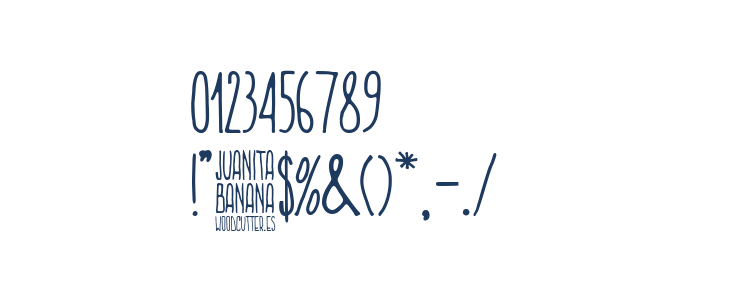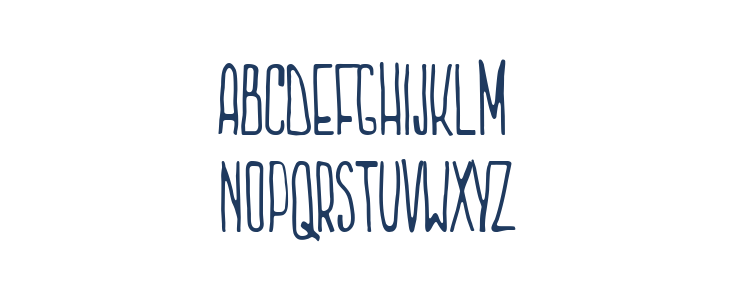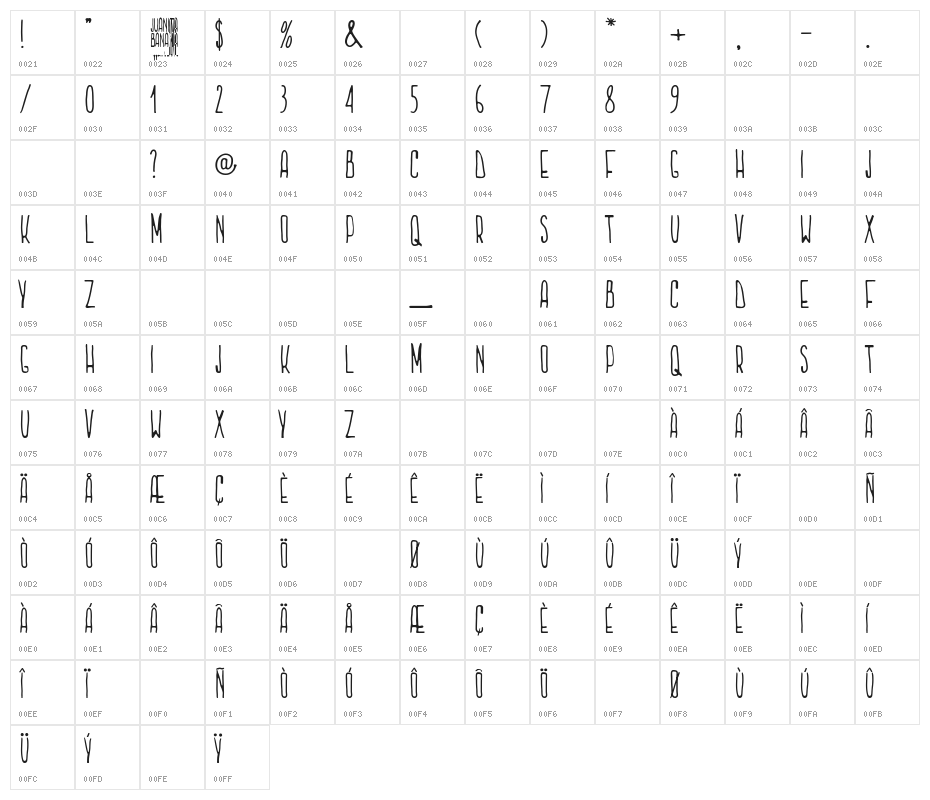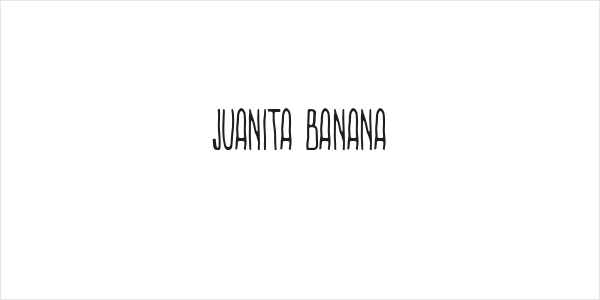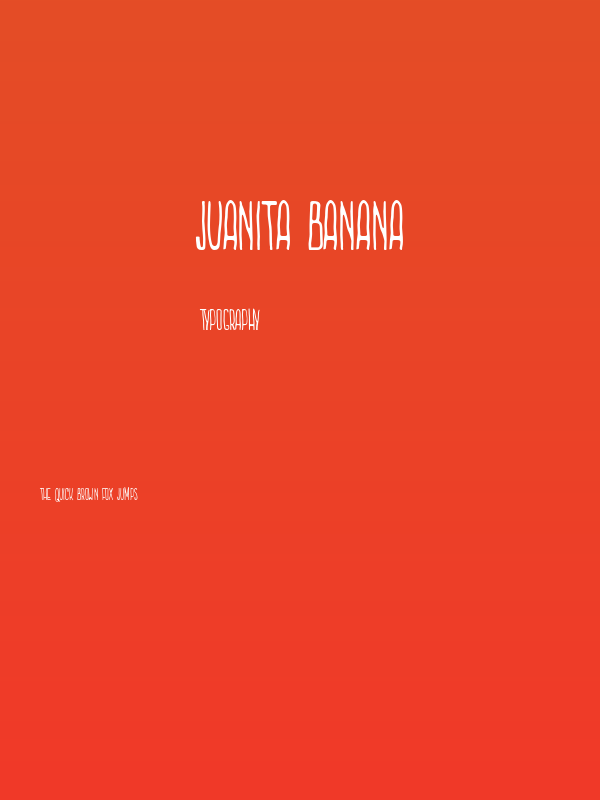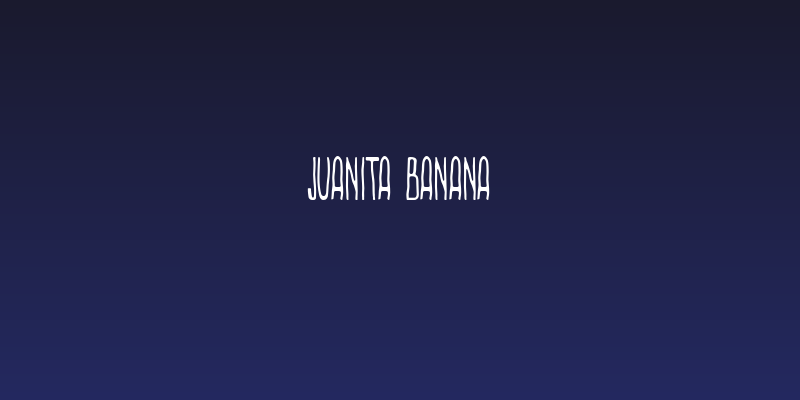
Juanita Banana Font
Juanita Banana Description
A tall, narrow, handwritten-style font with playful, irregular strokes and a casual, organic appearance. The characters are elongated with uneven line thickness, giving a quirky and informal feel.
| Overall Style | Decorative, Playful, Handwritten |
| Use Case | Headlines, Posters, Logos, Informal text |
| Proposed Projects | ChildrenΓ’β¬β’s books, posters, greeting cards, playful branding, informal invitations. |